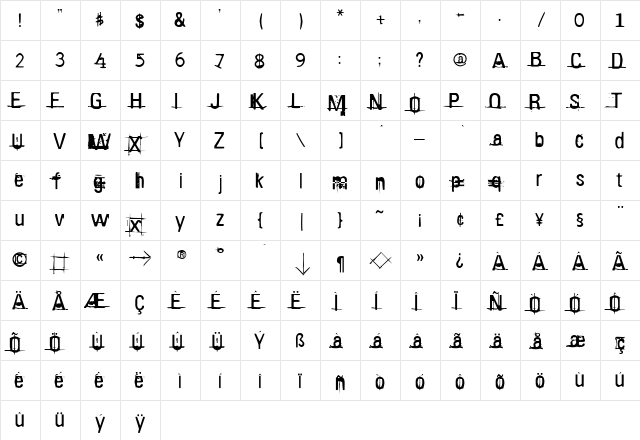
KO Regular
Foundry \ Rebels/Denis Dulude/
Design Context for KO Typeface
KO is a composed and adaptable typeface that performs quietly and consistently across a wide range of design contexts.